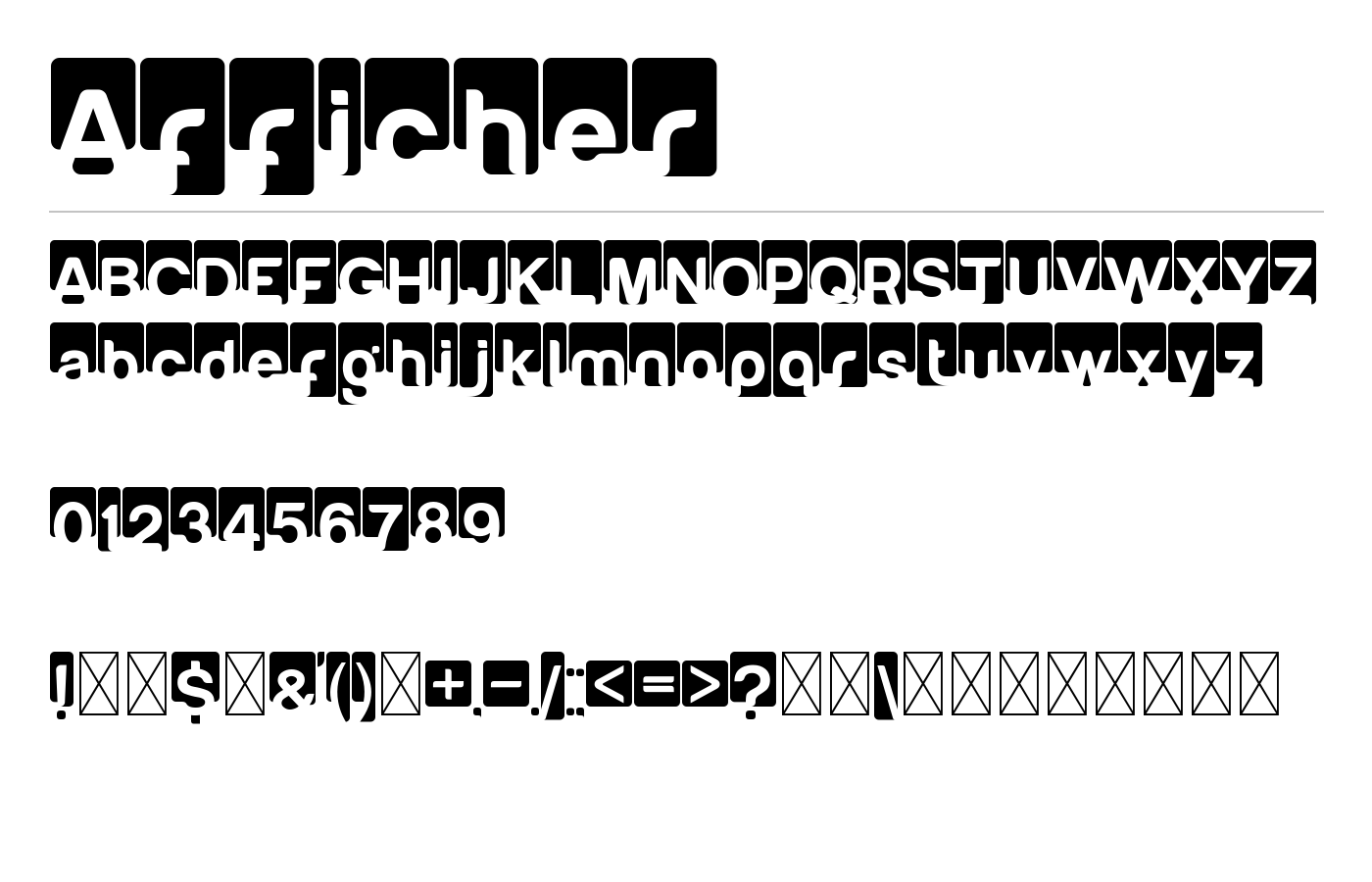
Afficher is a bold, geometric sans serif font with a modern and blocky style, featuring high contrast between solid black rectangular backgrounds and clean white letterforms. Its unique design creates a playful yet structured feel, making it ideal for eye-catching headlines, branding, and contemporary poster designs where strong visual impact is needed. This font works well in creative projects seeking a bold, futuristic, and slightly unconventional look.
Afficher Font
About Afficher Font
| Designer | Fontalistr |